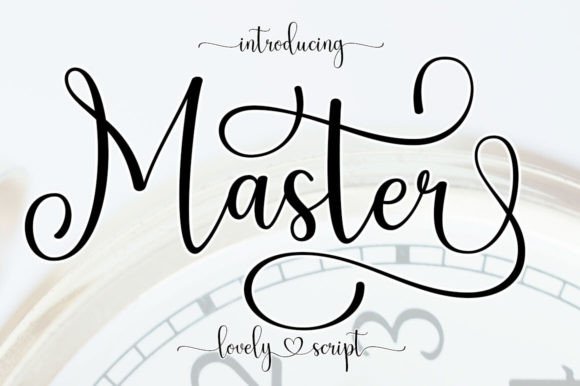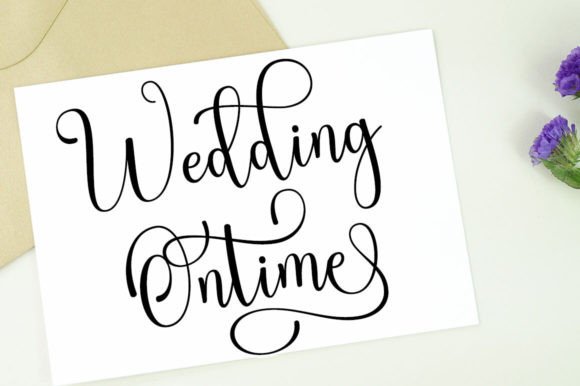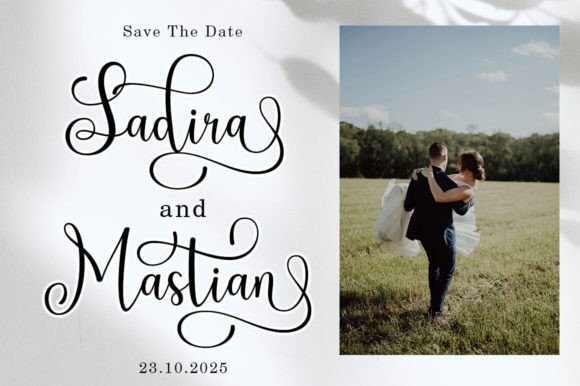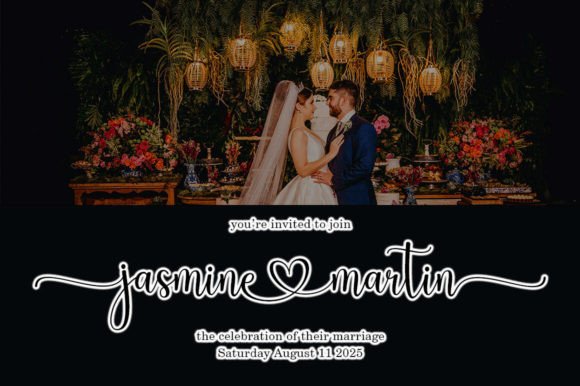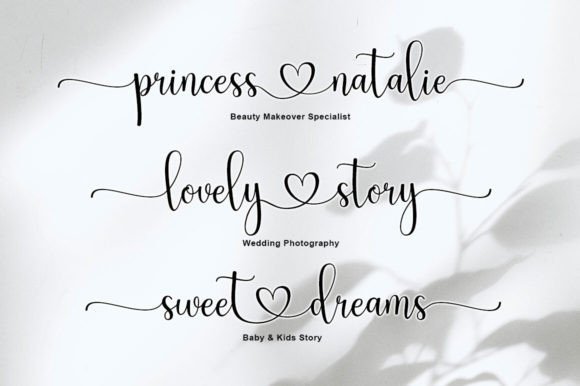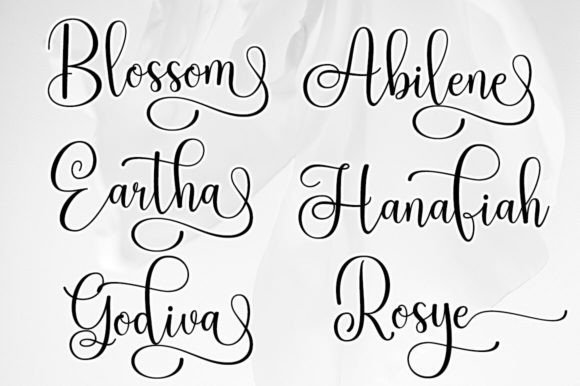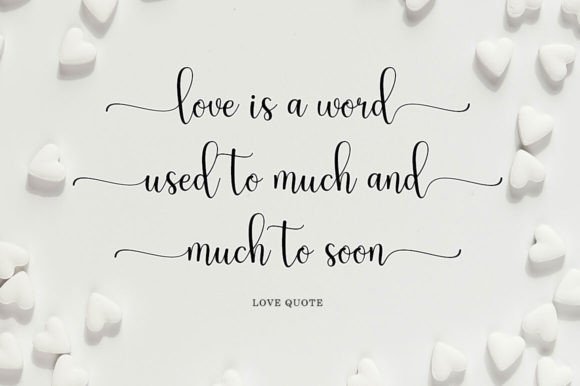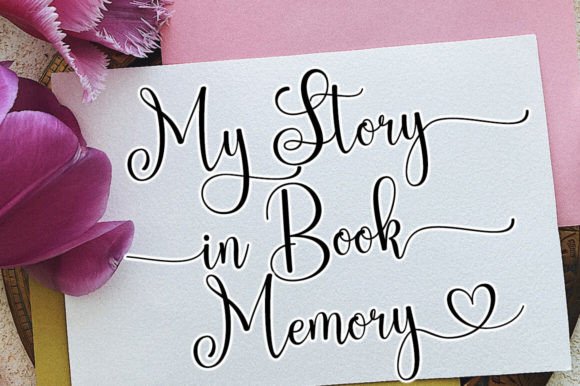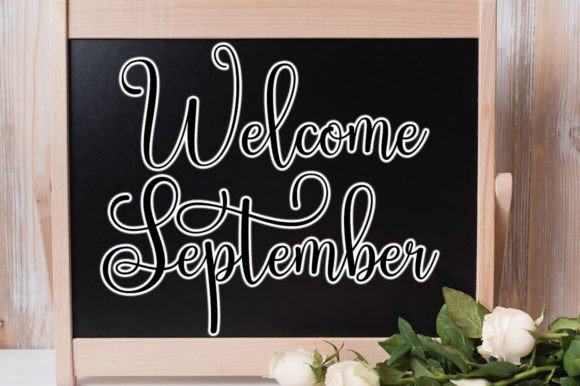
Master Script Font
Master Script! A new fresh and modern handwritten font with decorative characters and dancing baselines. Very beautiful on invitations such as handicrafts, greeting cards, branding materials, business cards, quotes, posters, and other design concepts.